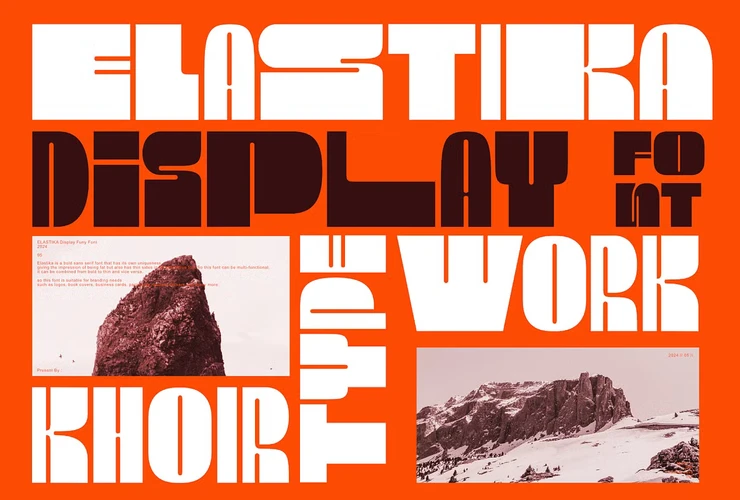
Elastika: The Versatile Display Font for Bold and Elegant Designs
Elastika – Display Font is a standout in the world of sans serif typefaces, offering a unique blend of boldness and versatility. Designed to cater to a wide range of design needs, Elastika’s distinctive characteristics make it an ideal choice for everything from branding projects to eye-catching visuals. Its ability to transition seamlessly between thick and thin styles provides designers with unparalleled flexibility, allowing for creative combinations that elevate any project.
The Uniqueness of Elastika
Elastika is more than just a bold sans serif font; it embodies a dual nature that sets it apart from other typefaces. The font’s bold characters exude strength and presence, making a strong visual impact. At the same time, its alternative thinner styles offer a delicate contrast, adding an element of sophistication. This multifunctionality makes Elastika perfect for a variety of applications, including:
Branding & Logos: Create memorable brand identities with Elastika’s bold and unique style.
Book Covers: Design compelling covers that grab attention with striking typography.
Business Cards: Make a lasting impression with sleek and professional card designs.
Packaging: Enhance product appeal with stylish and versatile font choices.
Quotes & Stickers: Add a touch of personality and flair to your quotes and sticker designs.
Key Features
Bold Sans Serif Style: A striking design that commands attention.
Versatile Alternate Styles: Offers thinner alternatives for elegant combinations.
Uppercase Letters: Strong and impactful lettering for bold statements.
75+ Language Support: Extensive multilingual capabilities for global reach.
Elastika’s adaptability and unique design make it a must-have for designers looking to create bold and sophisticated visuals. Its versatility allows for a seamless transition between thick and thin styles, making it suitable for a wide range of applications. Whether you’re working on a branding project, designing a book cover, or creating eye-catching quotes, Elastika provides the perfect typographic solution.